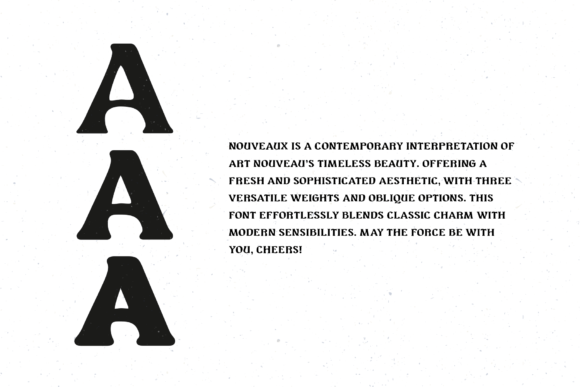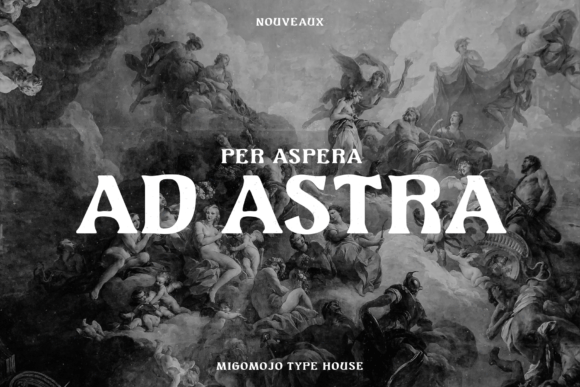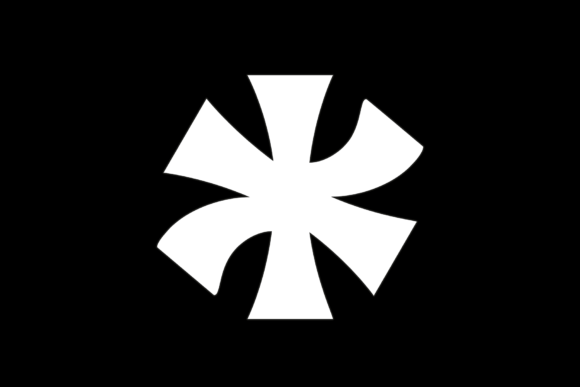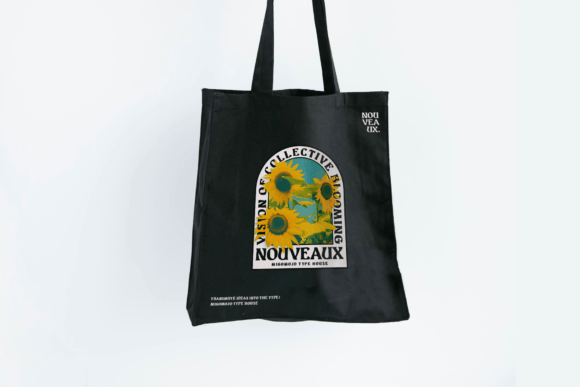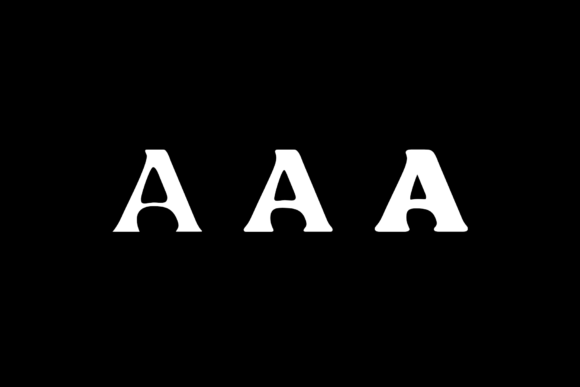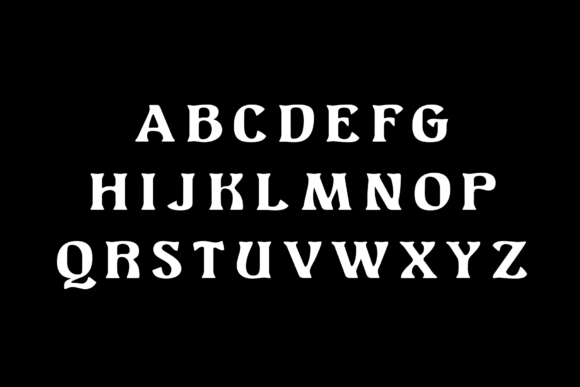
Introduction to Nouveaux Font Font
Fonts play a crucial role in design, and the Nouveaux Font font is a typeface that brings both character and versatility to any project. Whether you’re working on a branding project, a website, or a print design, the Nouveaux Font font offers a unique style that can elevate your work.
Nouveaux is a contemporary Art Nouveau font, offering a fresh and sophisticated look with three versatile weights and oblique options.
This font effortlessly blends classic charm with modern sensibilities .
Key Features of Nouveaux Font Font
Why Choose Nouveaux Font Font?
The Nouveaux Font font is more than just a typeface – it’s a design tool that helps you communicate your message with style and clarity. Its unique character set and versatile design make it suitable for a wide range of applications, from elegant invitations to bold headlines.
With its carefully crafted letterforms and balanced proportions, the Nouveaux Font font ensures readability and visual appeal across all mediums.
What makes Nouveaux Font font special?
The Nouveaux Font font stands out with its unique design, exceptional readability, and versatility across various design applications.